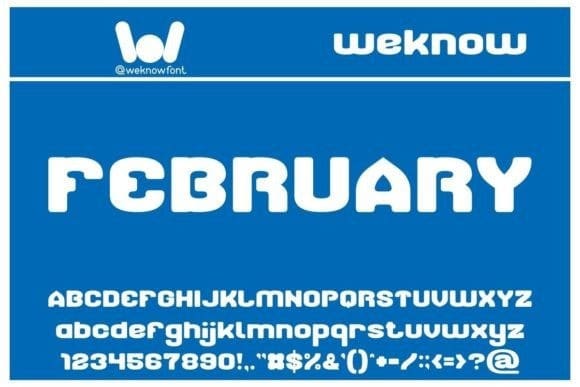
February Display Font
February Display Font by weknow 16,103 downloads
February Display Font
February Display Font, is a fancy display font suitable for various projects such as logos, logotypes, headlines, corporate identity, brand identity, apparel industry, posters, music, movies, games, magazines, books, comics, cartoons, YouTube, Instagram, websites, or any of your creative design projects.